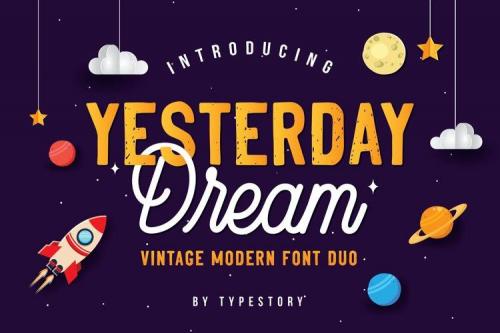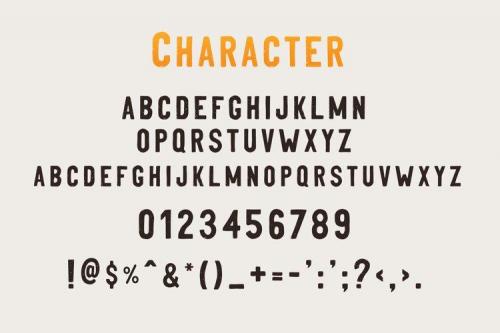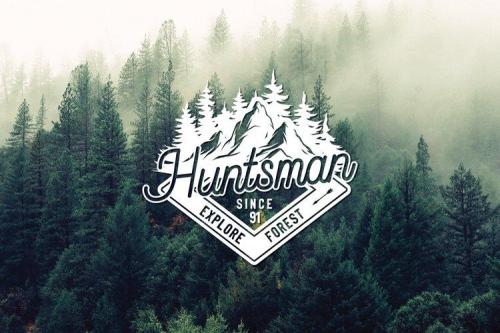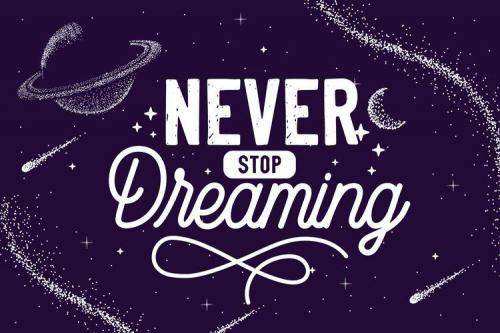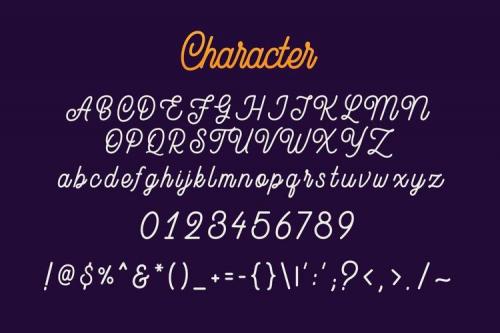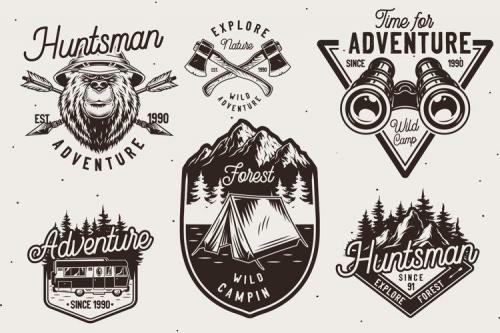
Yesterday Dream is an iconic and original duo font (modern and handwritten). Combining these two fonts on your next design will be like a match made in heaven. Use your imagination and bring your projects to the highest level with Yesterday Dream.
- Designer: Typestory